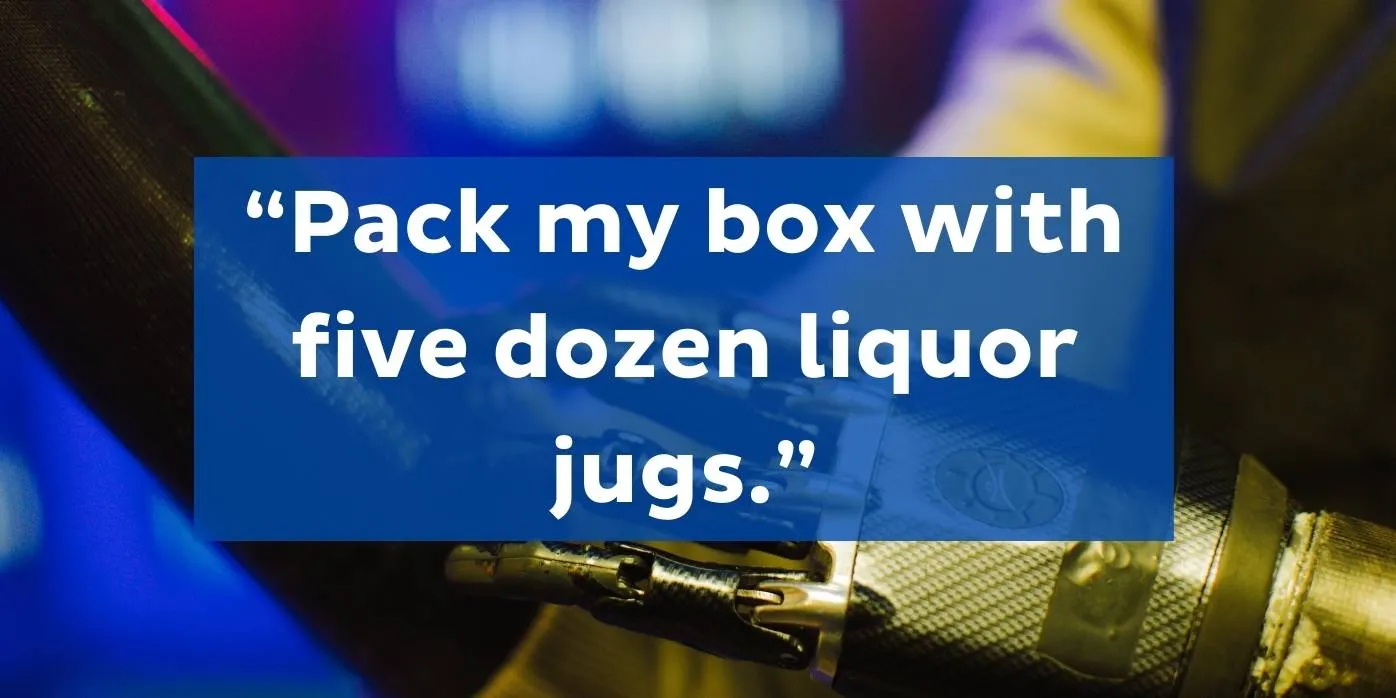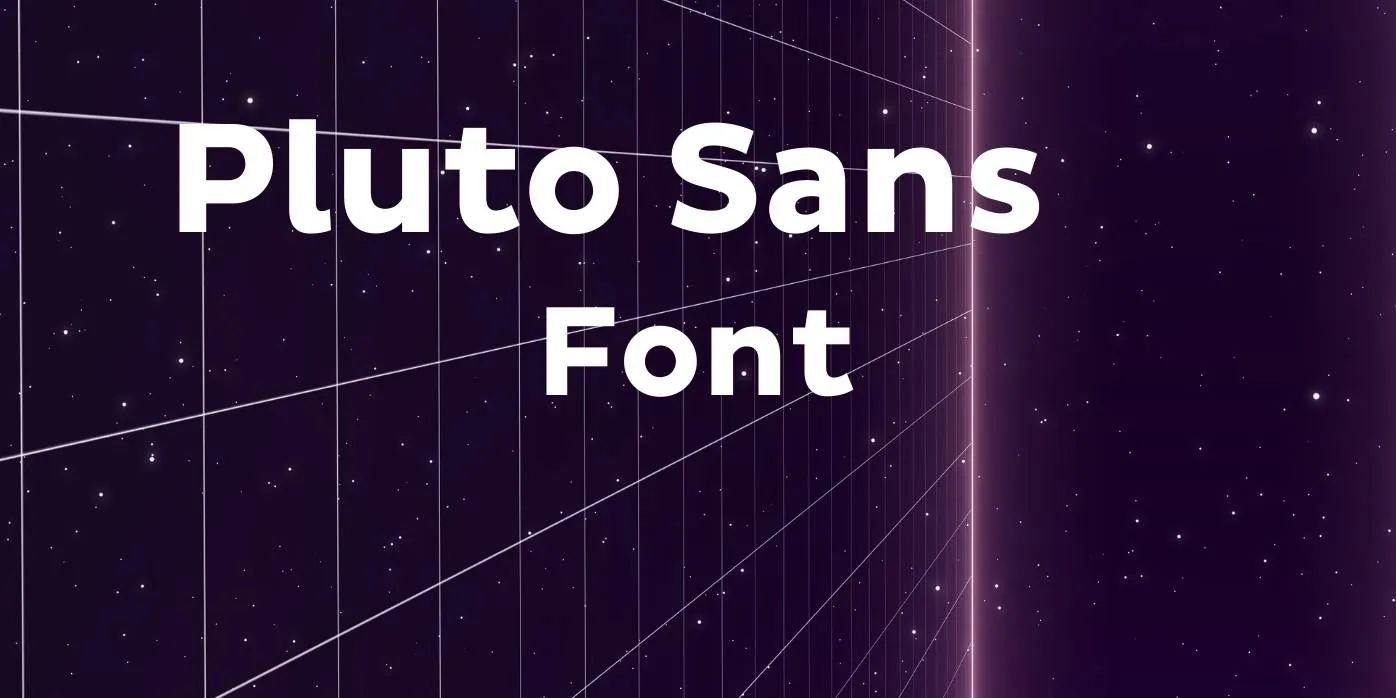
Pluto Sans Font
Pluto Sans Font was developed by Hannes von Dohren. This typeface belongs to the Sans-Serif typeface. The Pluto Sans typeface has been designed for both web and print use. The font includes 8 weights, from Light to Black, with matching italics.
The character set supports 200 languages. This typeface also comes in 32 unique styles and has great legibility. Its copy and paste function is perfect for different classic designs. This typeface is suitable for MS Word.
The Light Font is one of the most similar to this font family. This Font is perfect for headlines, logos, menus, and other typographic applications. You can use the font in your web projects by downloading it from our websites. This tremendous Font is a great choice for any project that requires a sans-serif typeface.
The font has a clean and modern look that will make your text stand out. It is very famous because of its high legibility.